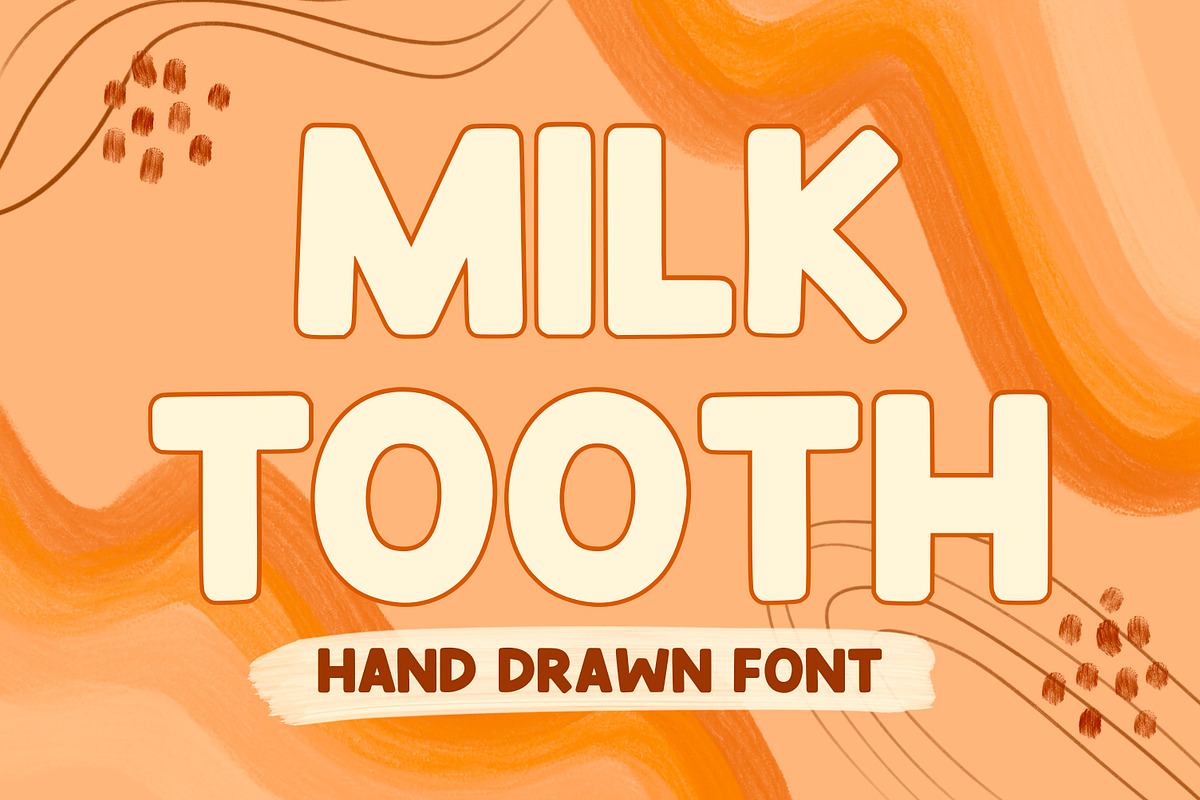
Milk Tooth Cute Handwritten Font Free Download
Milk Tooth Cute Handwritten Font Free Download is an adorable and playful typeface that brings a soft, childlike charm to any design. With its bubbly letterforms and friendly personality, Milk Tooth is perfect for kids’ books, classroom materials, birthday invitations, baby products, and whimsical branding.
This font mimics natural handwriting with a fun twist—making it approachable, lighthearted, and full of joy. It includes uppercase and lowercase letters, numbers, punctuation, multilingual support, and is fully compatible with both Mac and Windows systems.